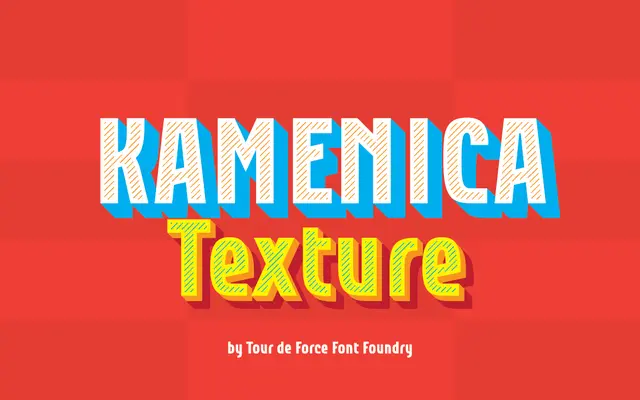
Kamenica Texture
Tour de Force · Dušan Jelesijević · 2017
A decorative, textured extension of the Kamenica family by Dušan Jelesijević, offered in six distressed style variants for display use.
Released in 2017, this family applies six distinct texture treatments to the Kamenica letterforms, producing worn and layered effects suited to poster, packaging and branding work. Each style carries a different degree or character of texture, from subtle grain to heavier distress. Extended Latin coverage spans 102 languages, broadening its practical reach beyond purely ornamental applications.
Classified as Display by the foundry; a decorative extension of the Kamenica family featuring six textured styles intended for ornamental and headline use rather than text setting.